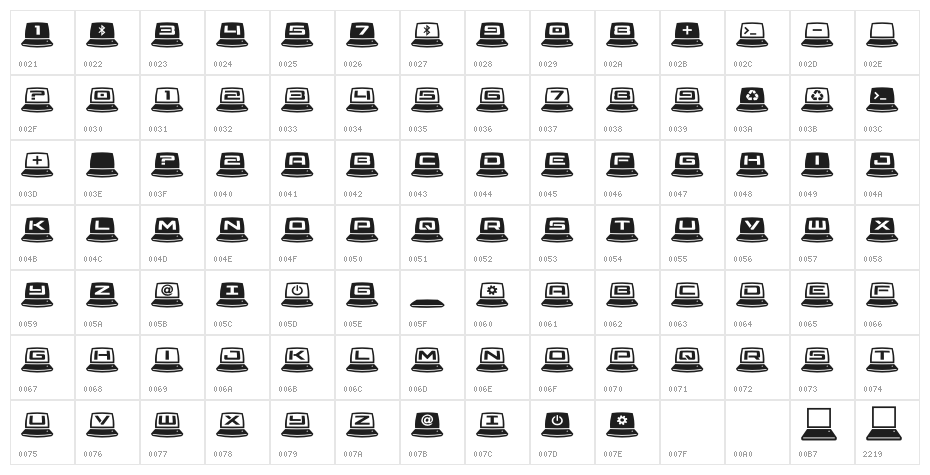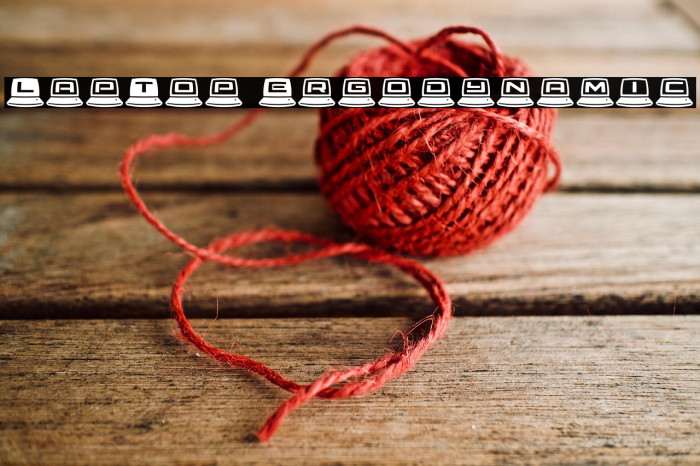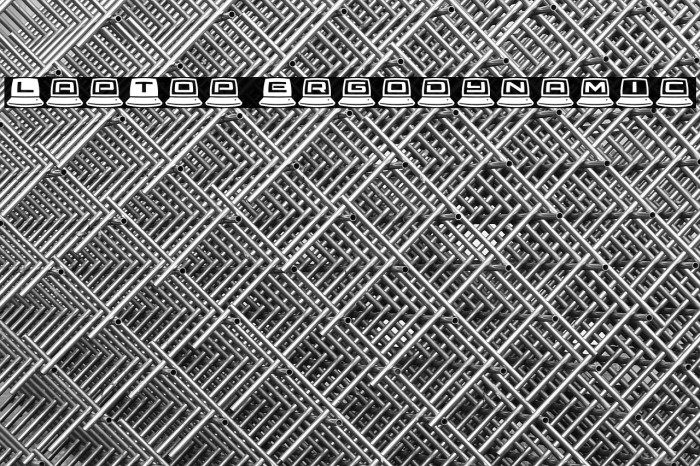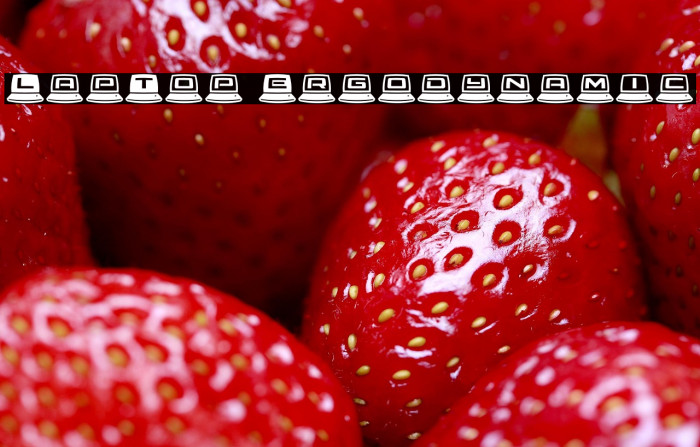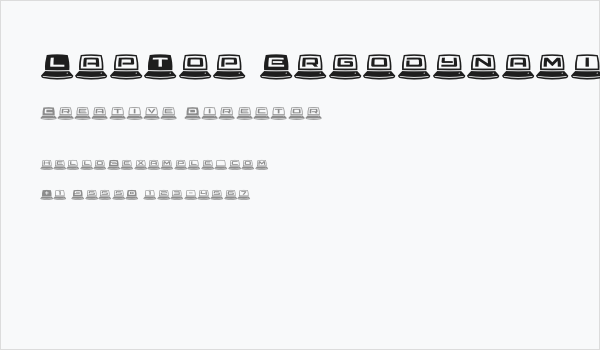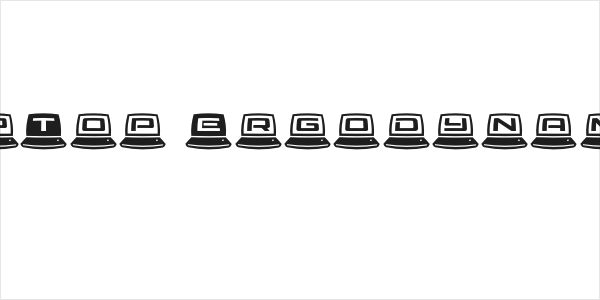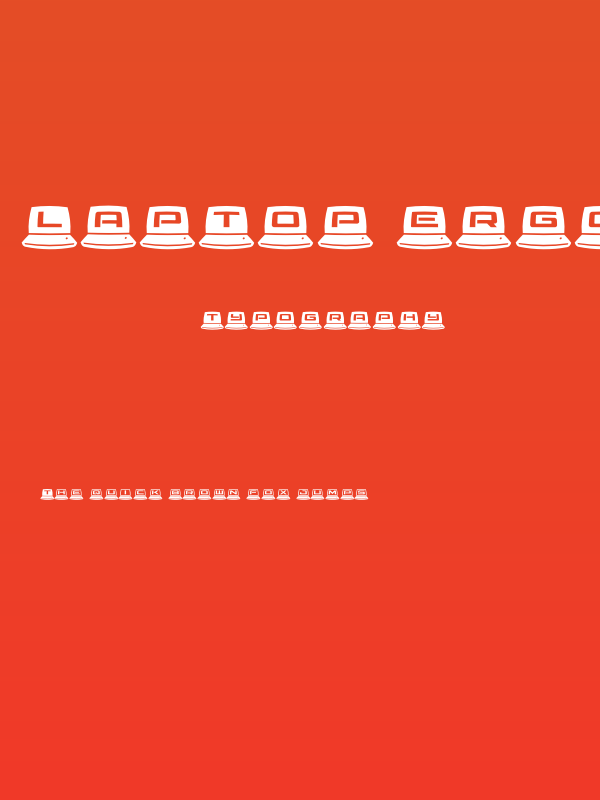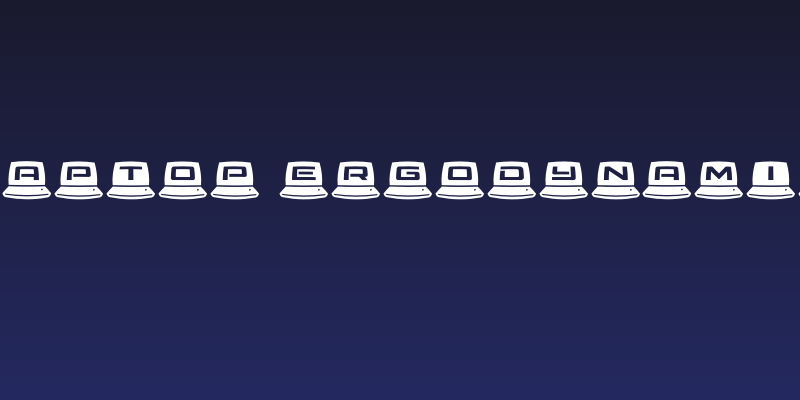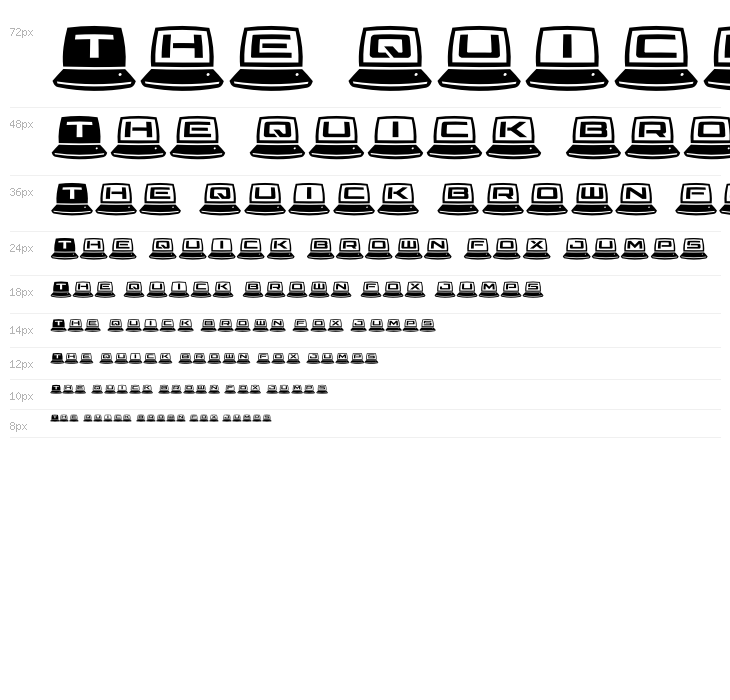
LapTop Ergodynamic Font
LapTop Ergodynamic Description
This font features a unique and playful design where each character is embedded within a stylized laptop icon. The letters and numbers are bold and geometric, providing a modern and tech-inspired aesthetic. The characters are uppercase and lowercase, with numerals and a selection of special symbols. The design is consistent across all characters, maintaining a uniform look that emphasizes the digital theme. The font's distinct style makes it ideal for projects that require a tech-savvy or futuristic feel, such as technology branding, digital media, or educational materials related to computing.
| Proposed Projects | Ideal for technology branding, digital media, educational materials related to computing, and futuristic design projects. |